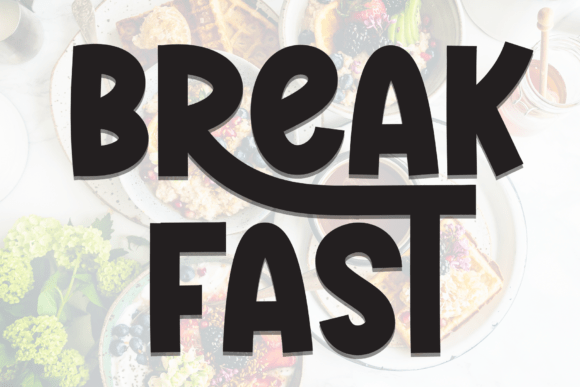
Introducing Break Fast Font: The Ultimate Casual Display Font for Your Creative Projects
In the world of typography, fonts play a crucial role in conveying the tone and personality of a brand or design. When it comes to creating visually appealing and engaging content, the right font can make all the difference. If you’re looking for a font that exudes a fresh, friendly vibe, look no further than Break Fast Font. In this article, we’ll dive into the world of Break Fast Font, exploring its features, benefits, and uses, as well as provide tips on how to make the most of this versatile display font.
What is Break Fast Font?
Break Fast Font is a casual and neat display font designed to radiate a fresh, friendly vibe. With clean lines and a relaxed structure, it’s perfect for a wide range of creative projects, from packaging and posters to social media graphics and more. The approachable design of Break Fast Font adds charm and clarity to projects while maintaining a polished appearance, making it an excellent choice for designers and brands looking to create a lasting impression.
Key Features of Break Fast Font
- Clean Lines: Break Fast Font boasts clean lines that give it a crisp and modern look, making it perfect for designs that require a touch of sophistication.
- Relaxed Structure: The font’s relaxed structure gives it a friendly and approachable feel, making it ideal for brands and designs that want to convey a sense of warmth and approachability.
- Fresh and Friendly Vibe: Break Fast Font is designed to radiate a fresh, friendly vibe, making it perfect for designs that require a youthful and energetic feel.
- Polished Appearance: Despite its casual nature, Break Fast Font maintains a polished appearance, making it suitable for a wide range of creative projects.
Benefits of Using Break Fast Font
So, why choose Break Fast Font for your creative projects? Here are just a few benefits of using this versatile display font:
- Versatility: Break Fast Font is perfect for a wide range of creative projects, from packaging and posters to social media graphics and more.
- Easy to Read: The font’s clean lines and relaxed structure make it easy to read, even at smaller sizes.
- Unique Personality: Break Fast Font has a unique personality that sets it apart from other fonts, making it perfect for brands and designs that want to stand out from the crowd.
- Time-Saving: With Break Fast Font, you can create professional-looking designs in no time, saving you time and effort.
Uses of Break Fast Font
Break Fast Font is a versatile display font that can be used for a wide range of creative projects, including:
- Packaging: Use Break Fast Font to create eye-catching packaging designs that stand out on store shelves.
- Posters: Create bold and eye-catching posters with Break Fast Font, perfect for advertising campaigns, events, and more.
- Social Media Graphics: Use Break Fast Font to create engaging social media graphics that grab attention and drive engagement.
- Branding: Use Break Fast Font as part of your brand identity to convey a fresh, friendly vibe.
Tips for Using Break Fast Font
Here are a few tips for using Break Fast Font to get the most out of this versatile display font:
- Experiment with Sizes: Break Fast Font looks great at a variety of sizes, so don’t be afraid to experiment to find the perfect size for your design.
- Pair with Other Fonts: Break Fast Font pairs well with other fonts, so try combining it with a serif or script font to add contrast and interest to your design.
- Use Color Effectively: Break Fast Font looks great in a variety of colors, so choose a color that complements your brand and design.
- Keep it Simple: Don’t overcomplicate your design – keep it simple and clean to let Break Fast Font shine.
In conclusion, Break Fast Font is a versatile and stylish display font that’s perfect for a wide range of creative projects. With its clean lines, relaxed structure, and fresh, friendly vibe, it’s an excellent choice for designers and brands looking to create a lasting impression. Whether you’re working on packaging, posters, social media graphics, or more, Break Fast Font is sure to become a go-to font in your design arsenal.